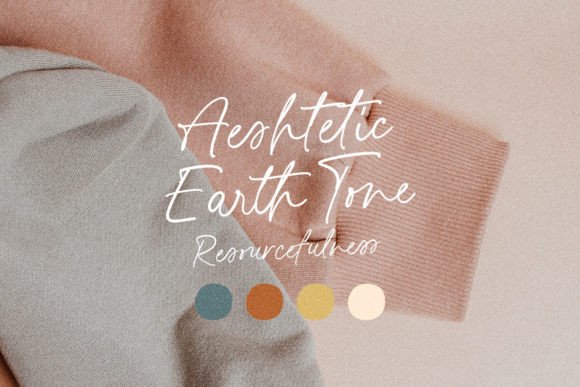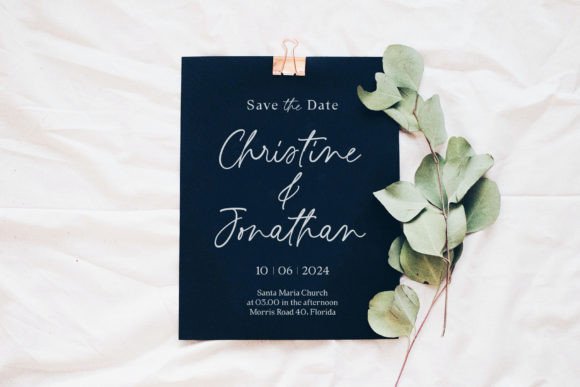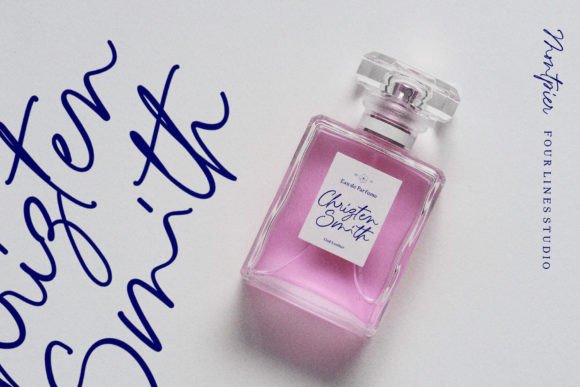
Introduction to Montpier Font
Have you ever found yourself stuck on a design project, struggling to find the perfect font to elevate your creative vision? I’m sure we’ve all been there. As designers, we understand the importance of choosing a font that not only complements our design but also tells a story. That’s why I’m excited to introduce you to the Montpier Font Duo, a game-changing design resource that’s sure to take your creative projects to the next level.
With its high-quality signature script and complementary serif typeface, the Montpier Font Duo is the perfect addition to any designer’s toolkit. Its transparent background and versatility make it an ideal choice for a wide range of design contexts, from branding and marketing materials to editorial and publishing projects.
What sets the Montpier Font apart is its value for designers. Not only is it a free download, but it also boasts OpenType features, including ligatures, alternates, numerals, punctuation marks, and multilingual support. This means you can trust that your design will look great, no matter the language or cultural context.
Key Features of Montpier Font
- High-quality font with a transparent background, making it perfect for creative projects.
- Designed with a modern and sleek aesthetic, making it ideal for use in logos, branding, and packaging design.
- Available in a single weight, providing a clean and consistent look for your design project.
Honest Review: Montpier Font
I recently stumbled upon the Montpier Font, a high-quality design resource that caught my attention with its unique characteristics. This free download is perfect for creative projects where you want to add a touch of elegance and sophistication.
- ✨ The Montpier Font has a transparent background, making it easy to use on any design project without worrying about background conflicts.
- ✨ The font is highly customizable, allowing you to adjust the size, color, and style to fit your design needs.
- ⚠️ The Montpier Font is only available in a limited range of weights, which might be a concern for designers who require a wide range of font weights for their project.
Overall, I’m impressed with the Montpier Font’s design and functionality. While it may have some limitations, it’s an excellent choice for designers who want a high-quality, free design resource for their creative projects.
The Montpier Font is a high-quality, elegant script font perfect for any creative project. To get started, you’ll need to download the font from a reliable design resource.
Use the Montpier Font on a transparent background to create a beautiful, elegant design. You can also use it in combination with other fonts to create a unique and creative look.
The Montpier Font is perfect for wedding invitations, birthday party invitations, and other creative projects that require a touch of elegance. You can also use it for branding and marketing materials, such as